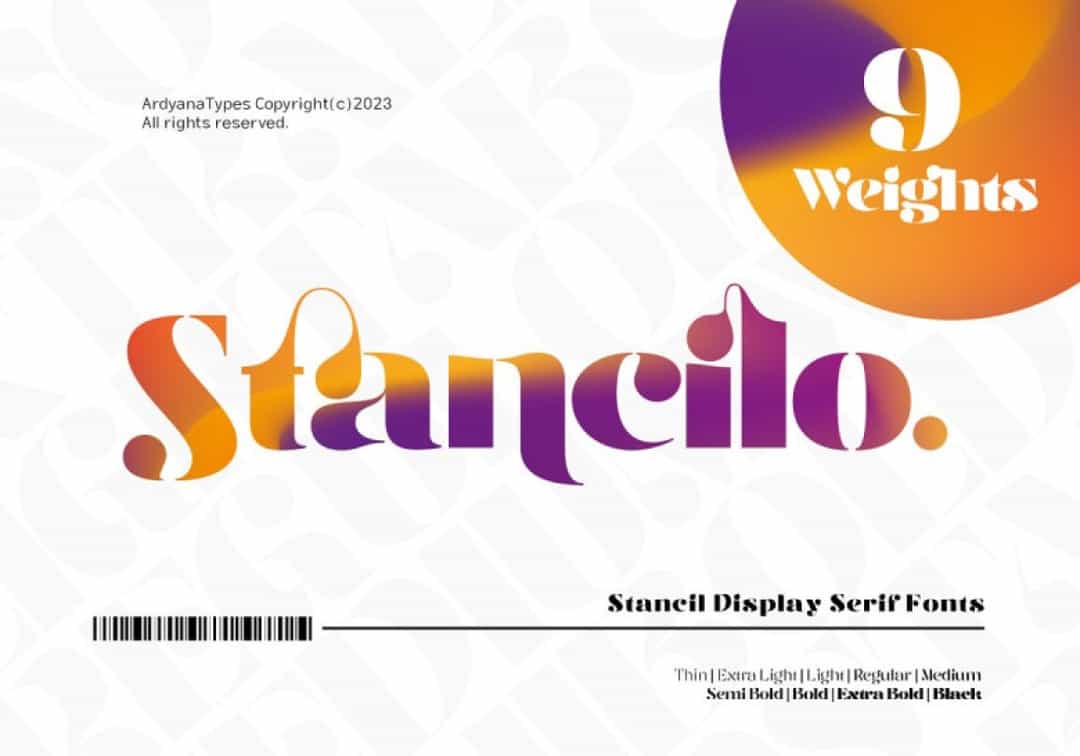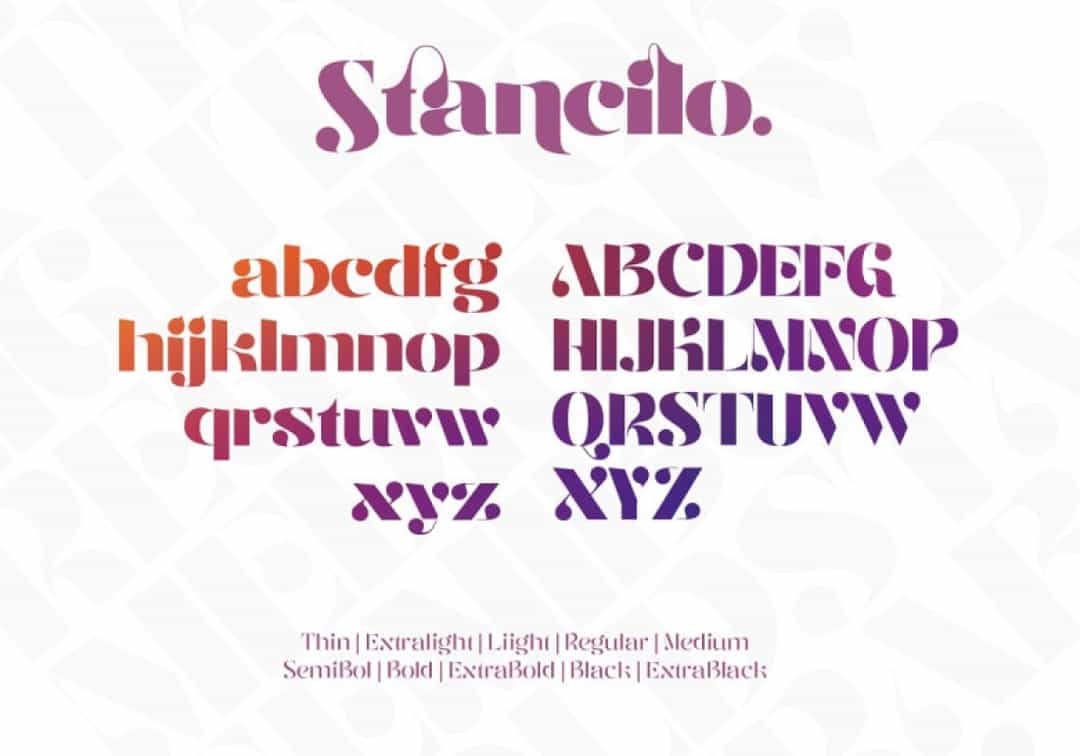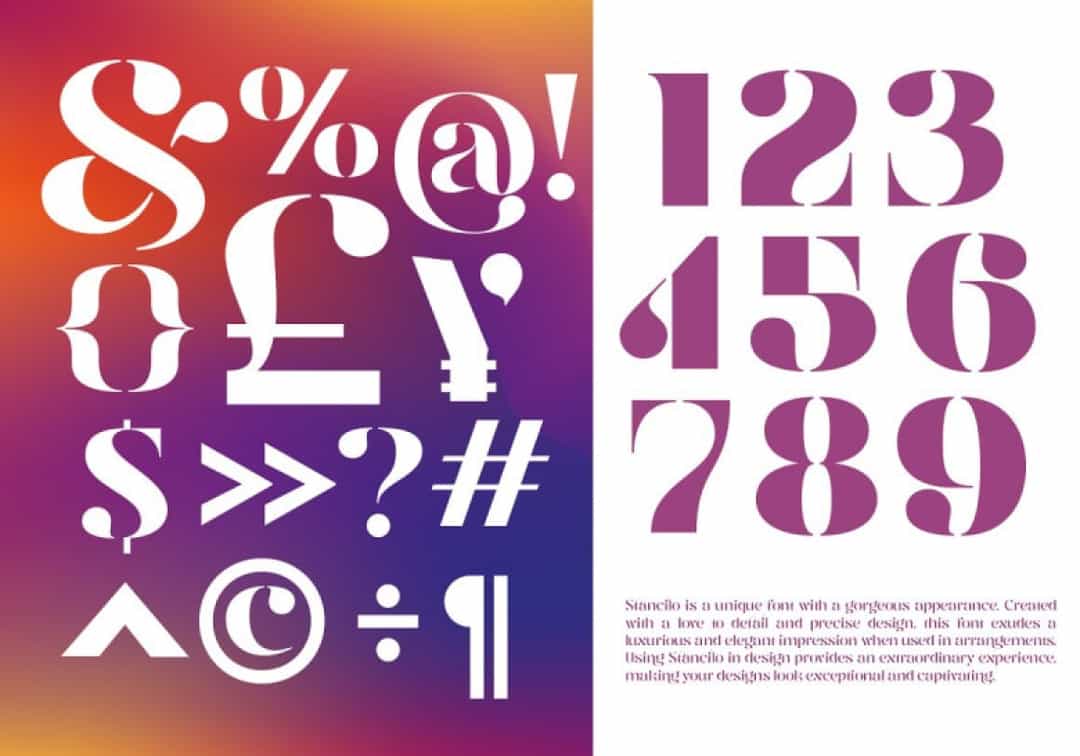
Discover Stancilo Font, part of the Serif Display collection—a versatile and unique font perfect for adding a personal touch to your projects. Download it for free and enjoy crafting designs with style, from invitations to social media posts. This font is available exclusively for personal use, giving you the freedom to create without limits. Unlock your creativity with Stancilo Font today!
Stancilo can be defined as an esoteric serif typeface that stands out with its distinctive style and striking appearance. Boasting nine sizes from light to thick for greater versatility and variety. Therefore, this font makes an excellent choice when creating designs such as headings, main headings or body text – as its level of intensity and accent can easily be adjusted as required.